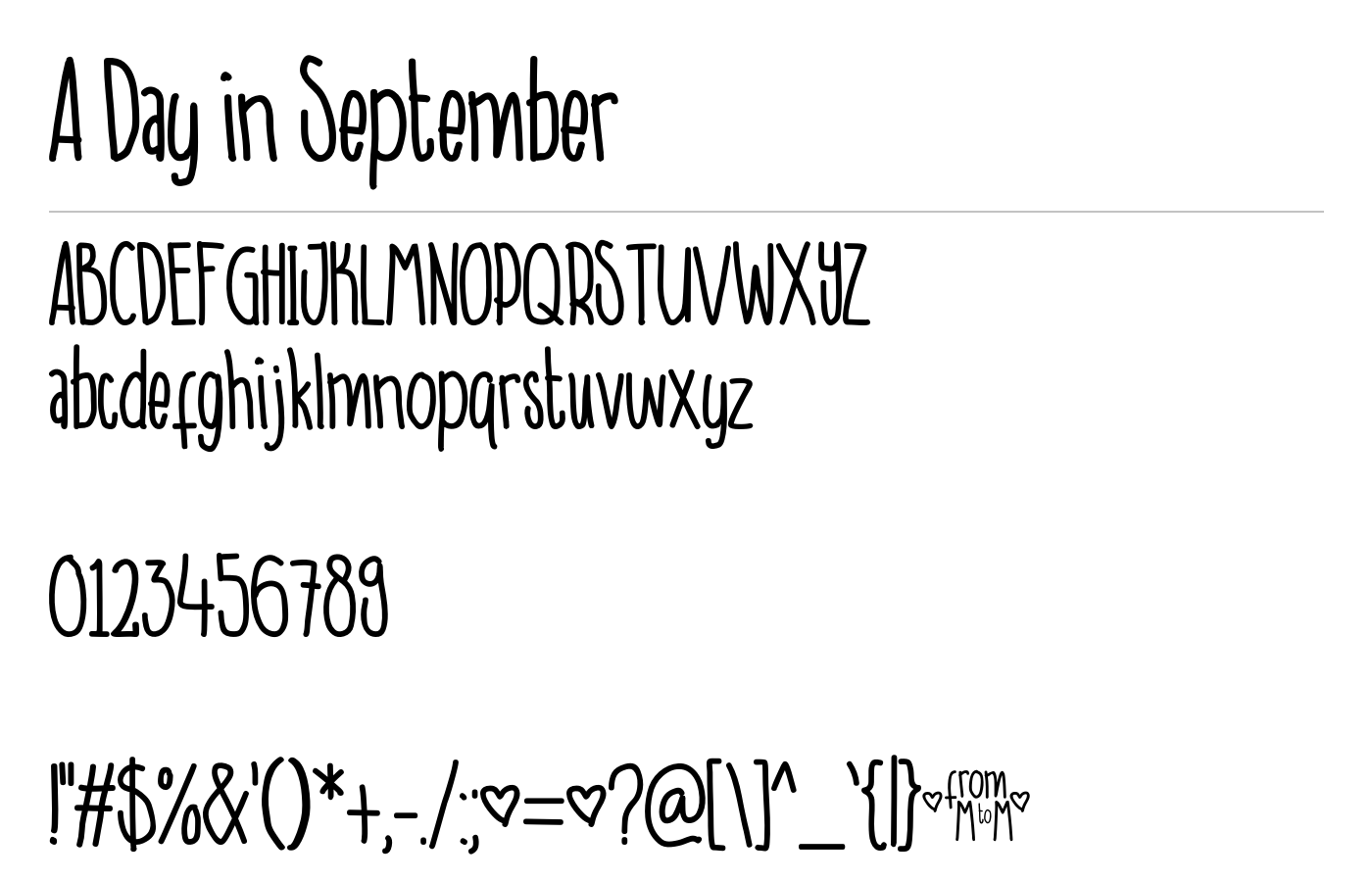
A Day in September is a quirky, handwritten sans serif font with tall, narrow letterforms and a playful, casual vibe. Its slightly irregular strokes and simple shapes give it a friendly, approachable personality, making it perfect for informal designs like greeting cards, children’s books, or creative social media graphics. This font works best in headlines or short texts where a personal, fun touch is desired.
A Day in September Font
About A Day in September Font